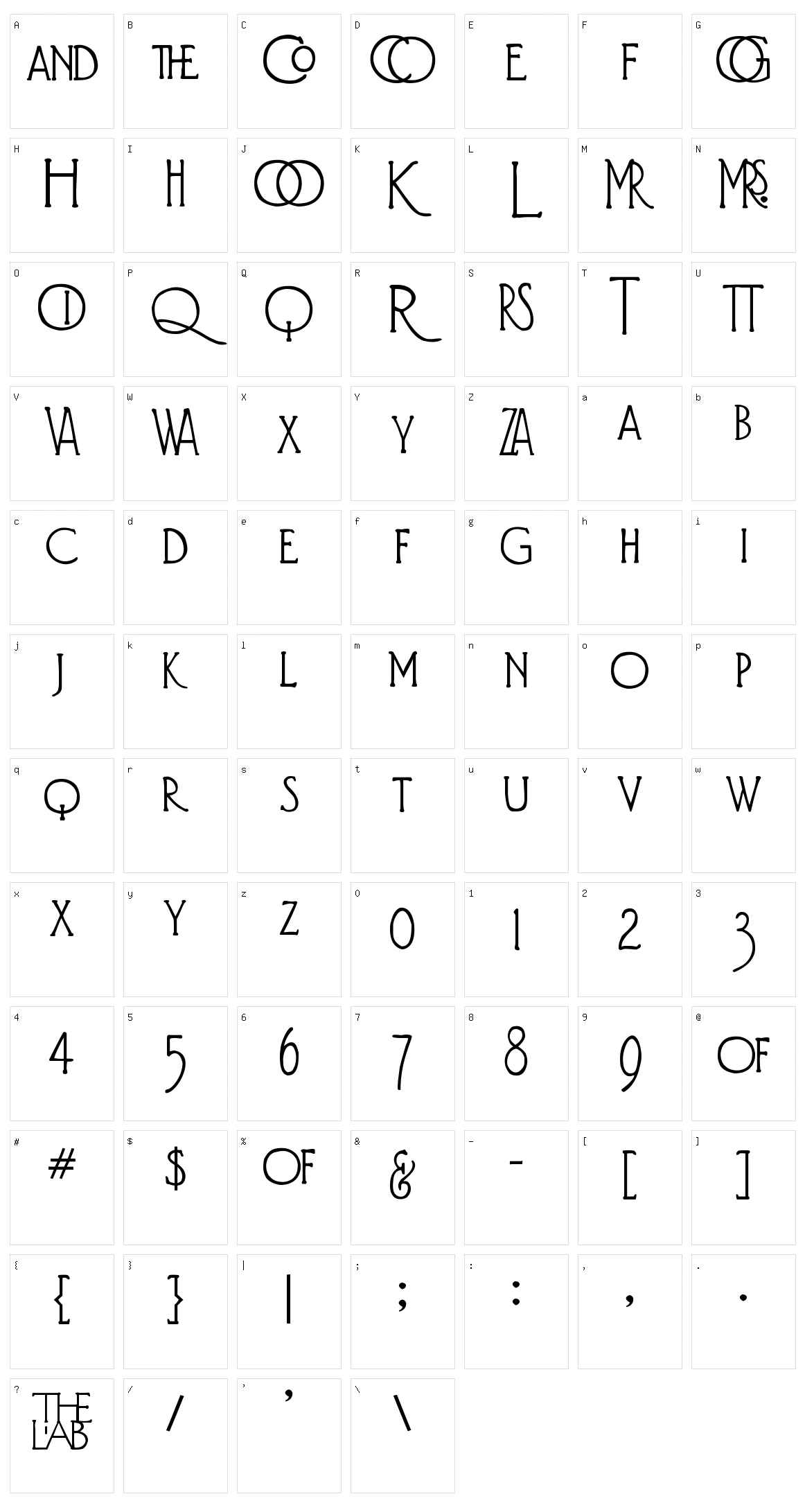
Diehl Deco
Designed by: Apostrophic Labs
Marley found a book on top of the trash bin outside her apartment building in Atlanta. The book was called "House Planning by Wooster Bard Field, Architect, A.I.A., Professor of Engineering Drawing, The Ohio State University, McGraw-Book Company Incorporated, New York & London, 1940".
Aside from being the longest title I have ever seen, the book contained some gorgeous hand lettering by Mr. Field. Some art deco, some calligraphy, and even some turn-of-the-century style stuff (some even reminiscent of Colwell, the Elizabeth Colwell lettering font that is also available at the lab). Marley and I figure that at least three fonts could be made from this trashed piece of house planning literature.
The appeal of this font is in the irregularity of the stroke weights, which vary slightly from one character to the other. Although the basic effect of what the font can do starts to be visible at about 30 points, we recommend that you use it at 60 points and above to reach its overall visual potential.